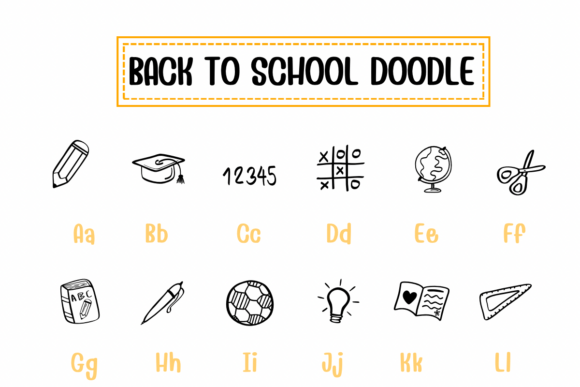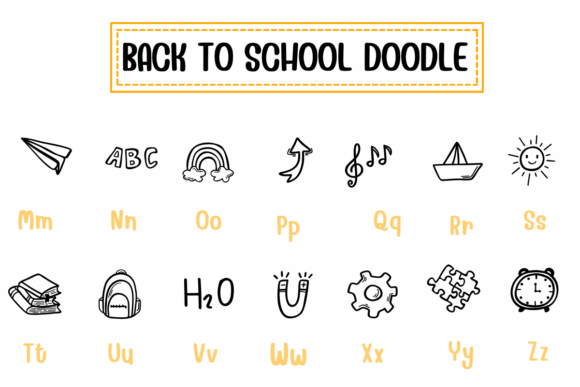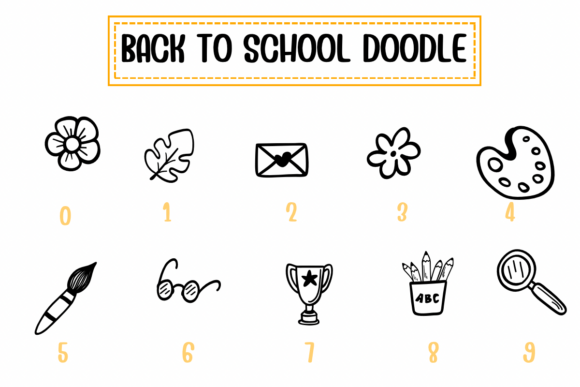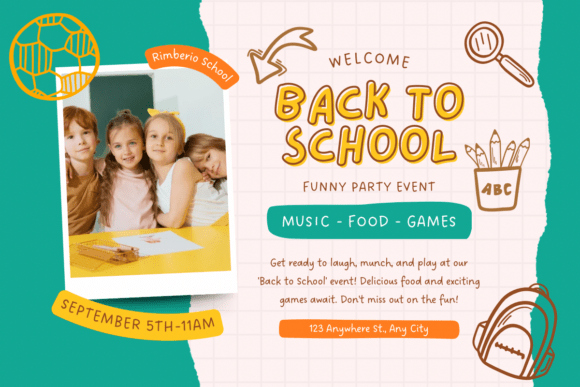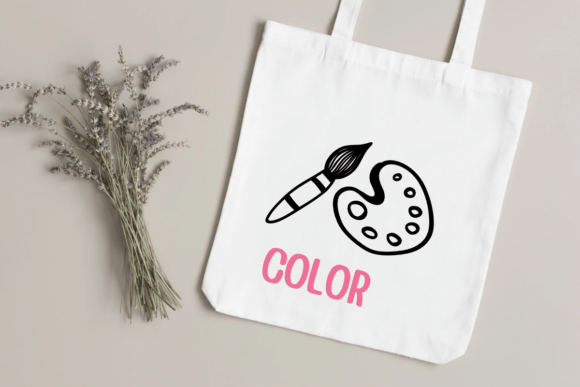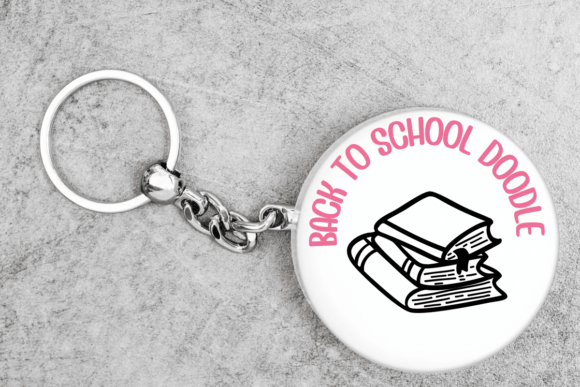
The Ultimate Back to School Doodle Font Guide: Elevate Your Educational Designs
I’ll never forget the summer I spent countless hours crafting educational materials for my niece’s homeschooling program. As a designer, I was determined to make learning fun and engaging, but I struggled to find the perfect font that would capture the playful spirit of education. That’s when I stumbled upon the Back to School Doodle font, and it completely transformed my design process.
As I dove deeper into the world of Back to School Doodle, I fell in love with its charming dingbats and hand-drawn icons. Here are a few things that make this font stand out:
- ✨ A vast library of playful glyphs, from school supplies to fun classroom elements
- ✅ Whimsical and child-friendly designs that instantly elevate any educational material
- ⚠️ A few glyphs may require manual kerning for optimal spacing
- 🤔 Limited support for non-English characters, but a great option for English-based educational content
The Story Behind Back to School Doodle
The Back to School Doodle font was inspired by the creative and playful world of education. Its designer, a passionate advocate for making learning fun, aimed to create a font that would bring a smile to students’ faces and inspire a love for learning. By combining school supplies, classroom elements, and whimsical doodles, this font embodies the spirit of creativity and curiosity.
| What type of designs is Back to School Doodle best suited for? | Back to School Doodle is perfect for educational materials, worksheets, invitations, and teacher resources. |
| Is Back to School Doodle suitable for non-English languages? | Back to School Doodle has limited support for non-English characters, making it best suited for English-based educational content. |